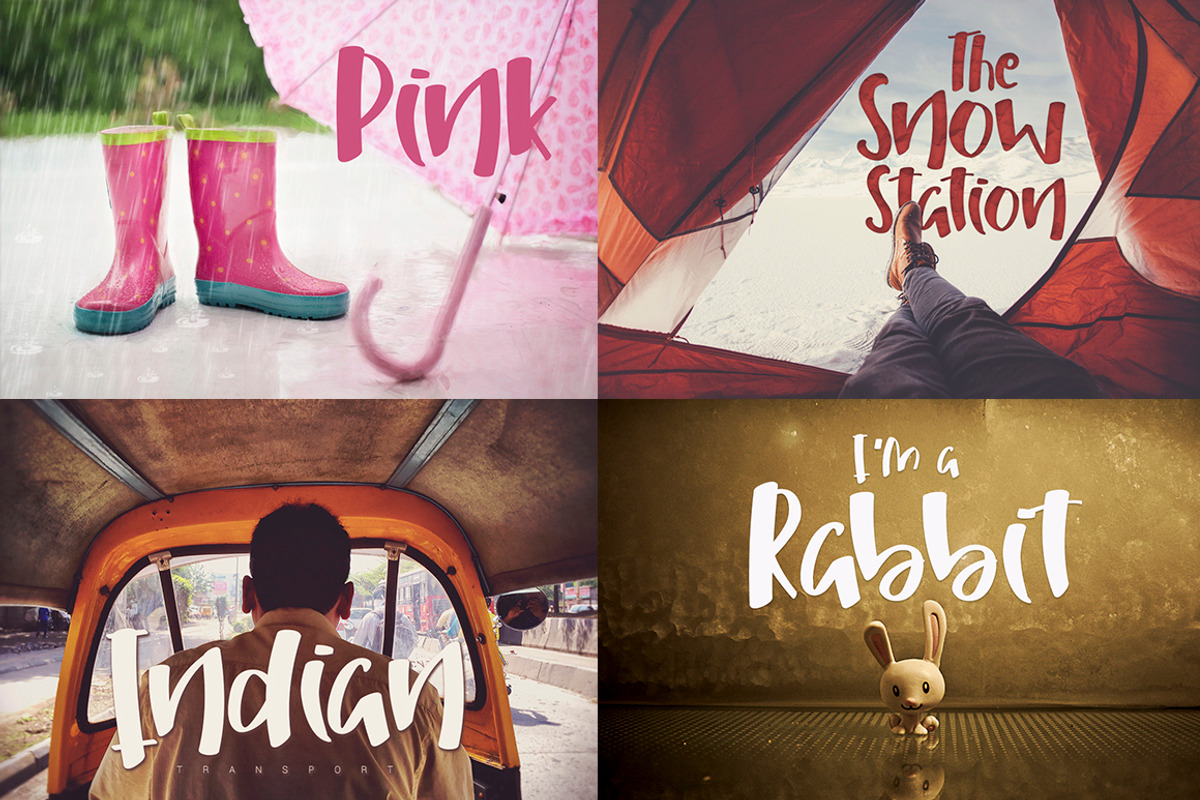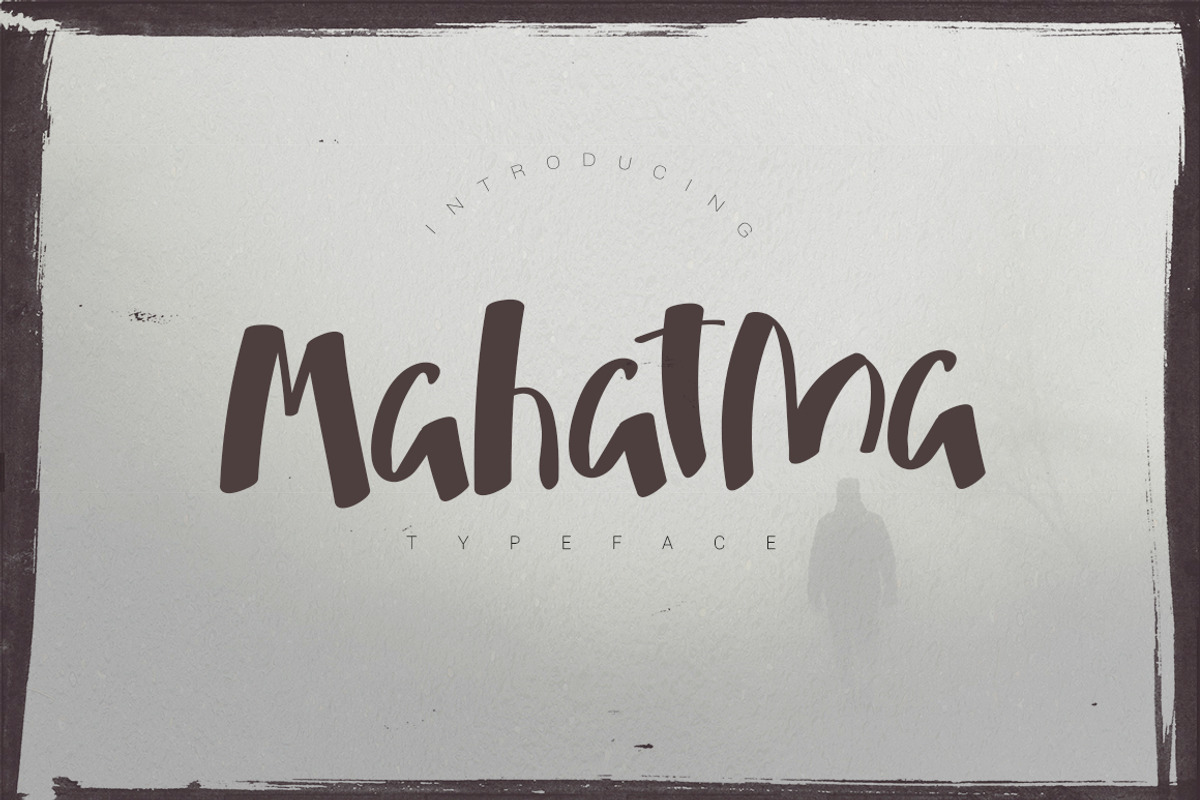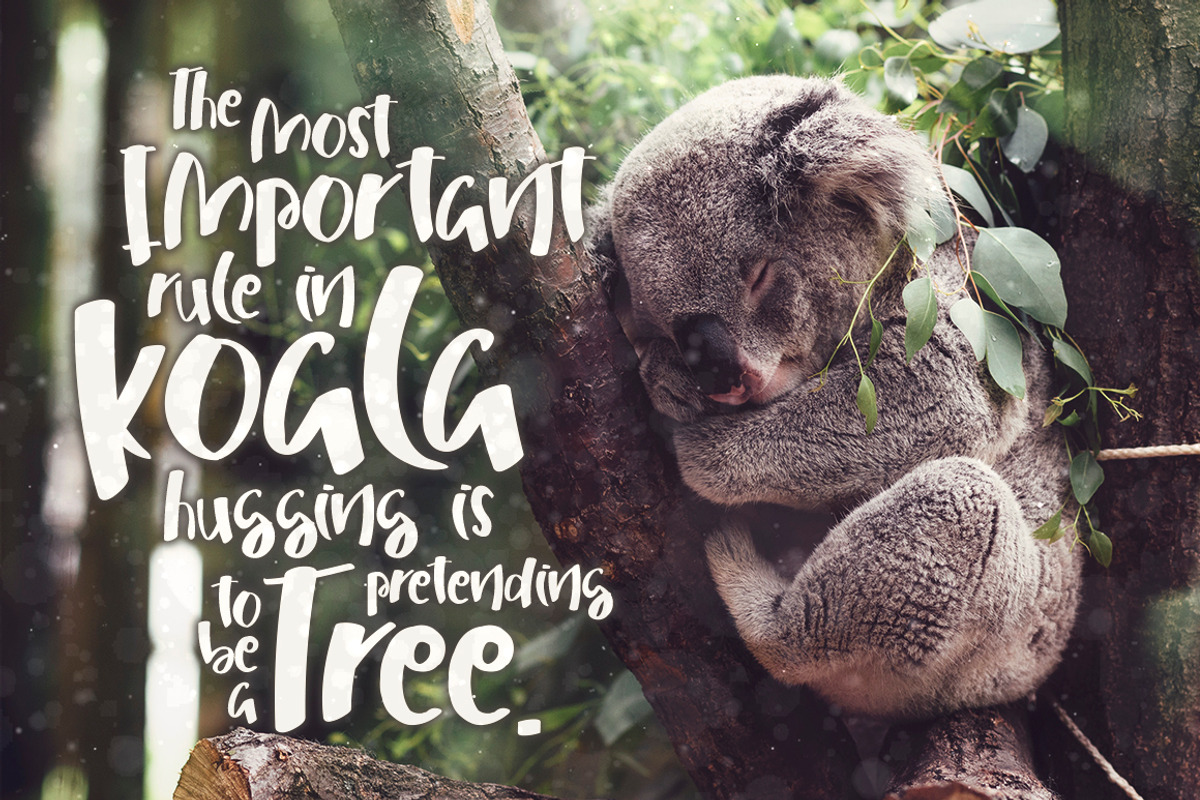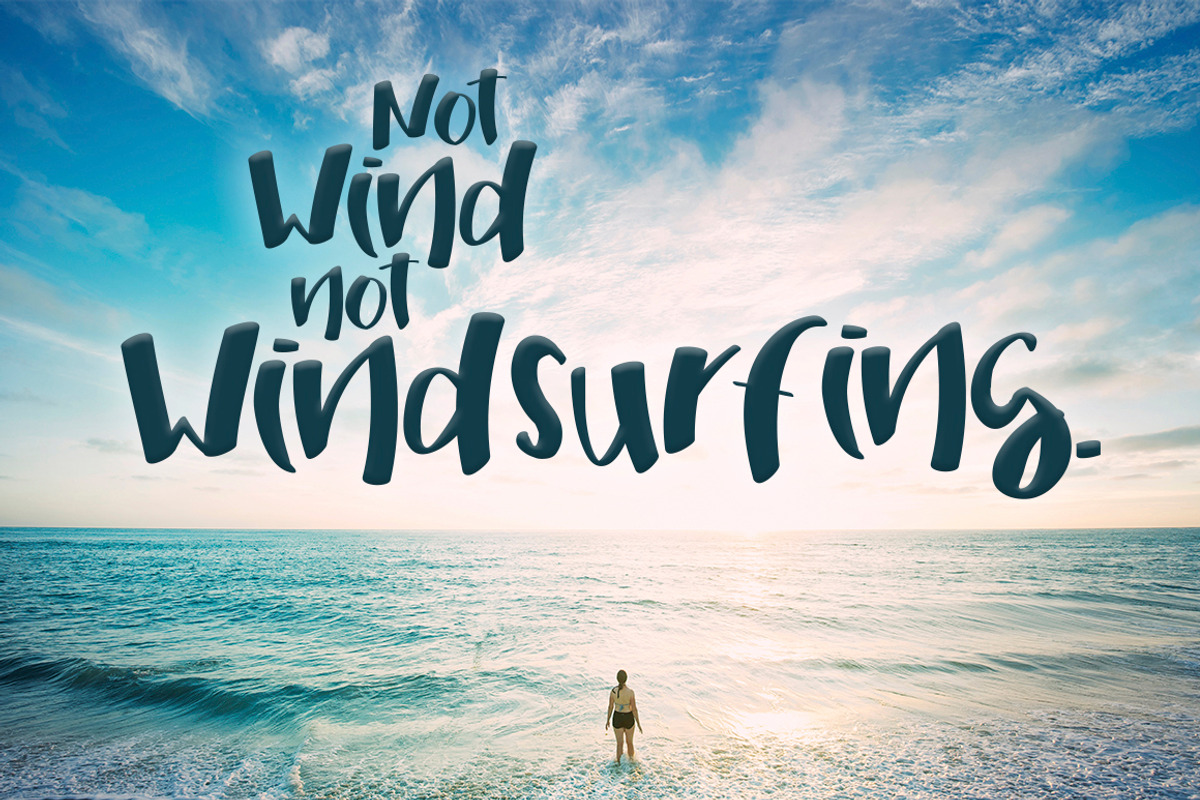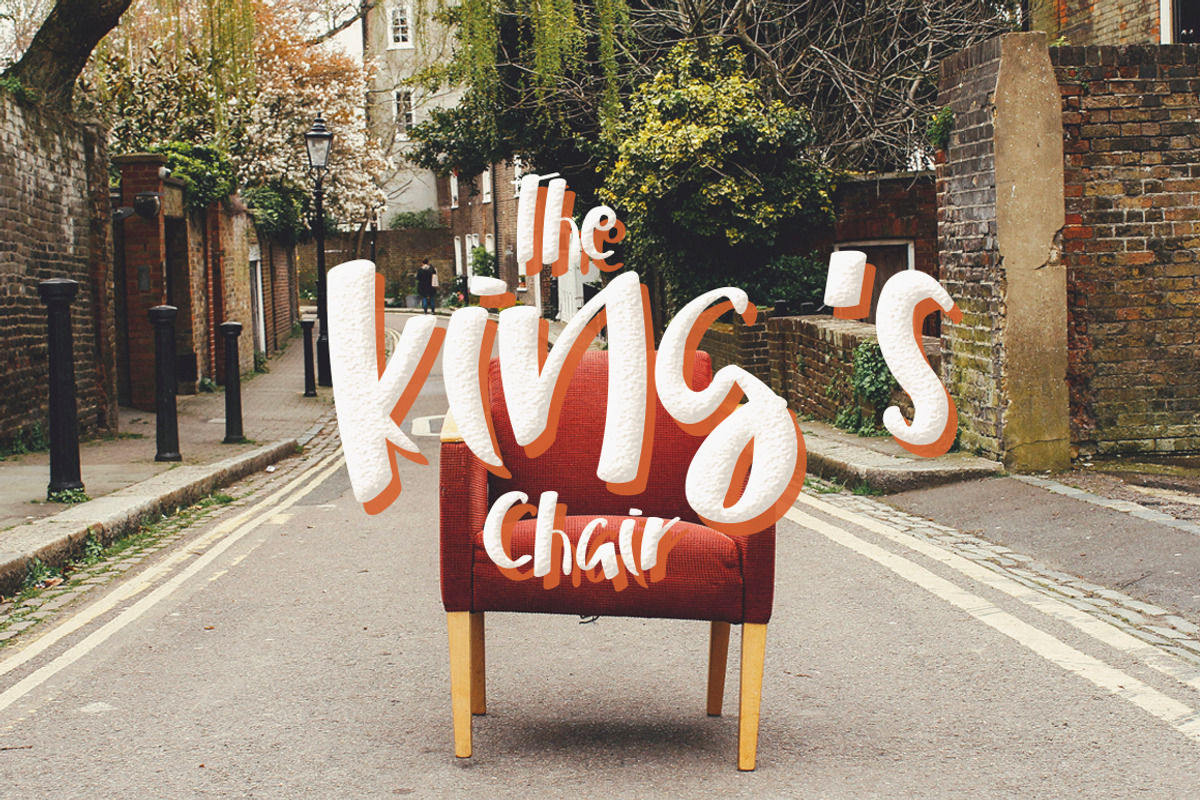
Mahatma Typeface
Mahatma is a stylish playful family that offers loads of fun.
There are 3 matching fonts that work together great and will allow you to offer tremendous variation in your designs.